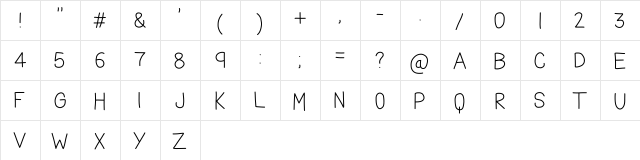
THE FRIENDLY INDIANS Medium
THE FRIENDLY INDIANS offers clean, dependable letterforms without strong stylistic allegiance, making it a practical choice for designers who need flexibility.